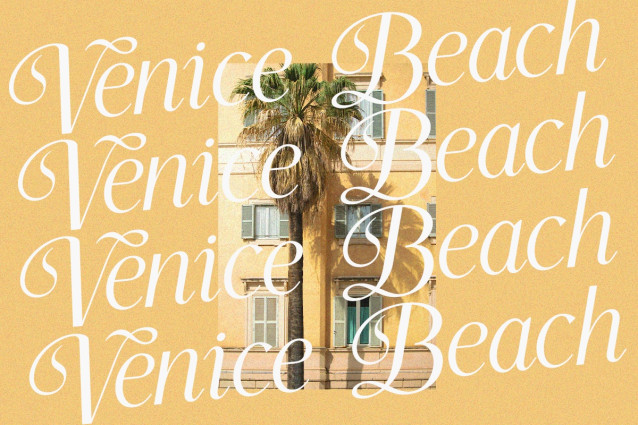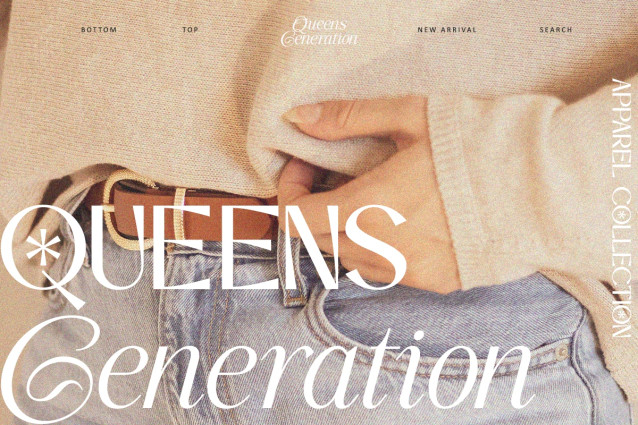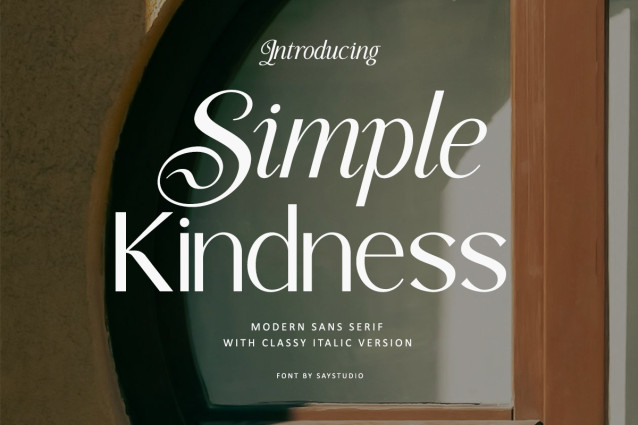
Simple Kindness is an elegant script serif font that blends graceful calligraphic curves with refined serif details, creating a sophisticated and timeless typographic style. Its flowing letterforms bring a soft, feminine character while maintaining excellent readability, making it a beautiful choice for both expressive headlines and polished branding.